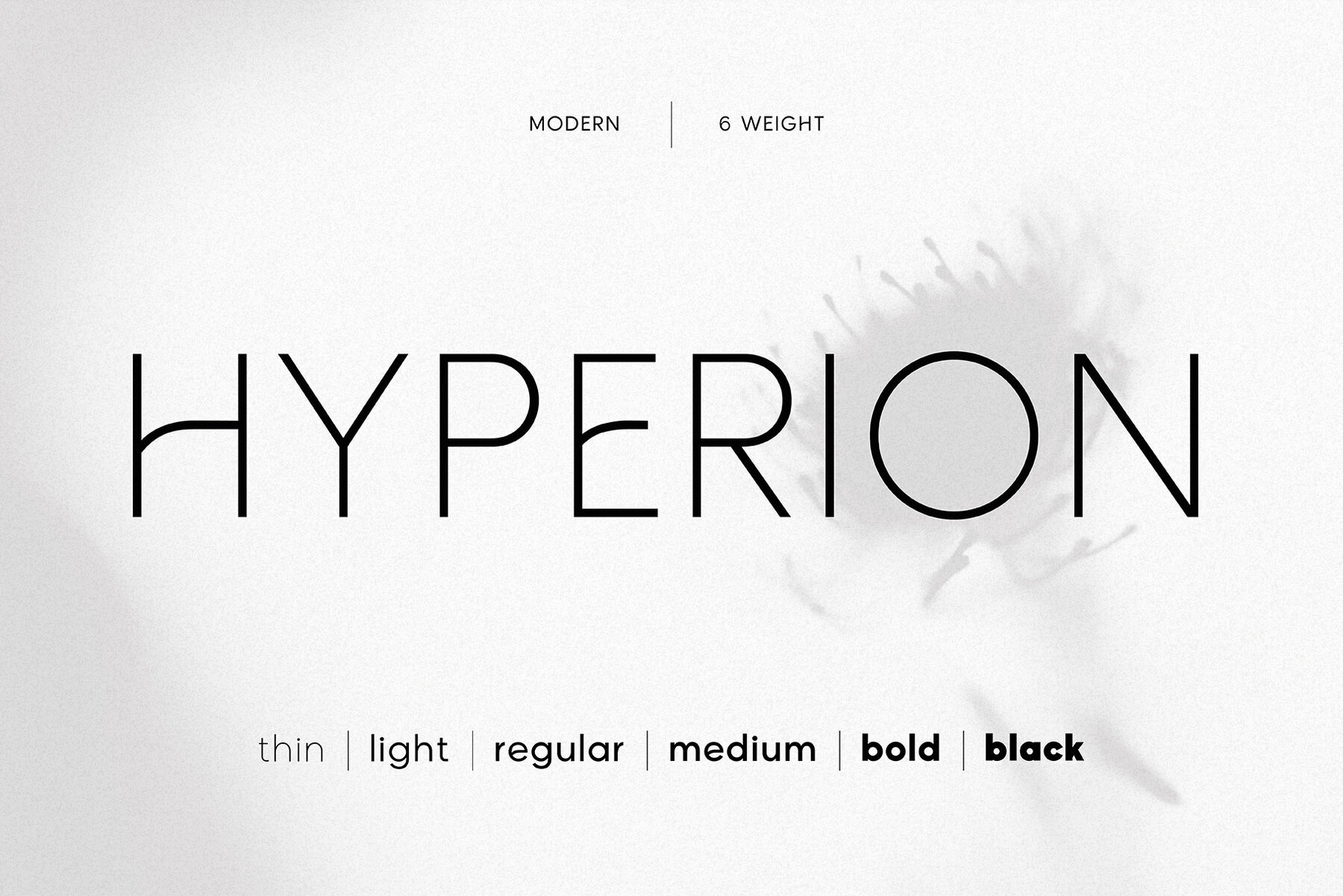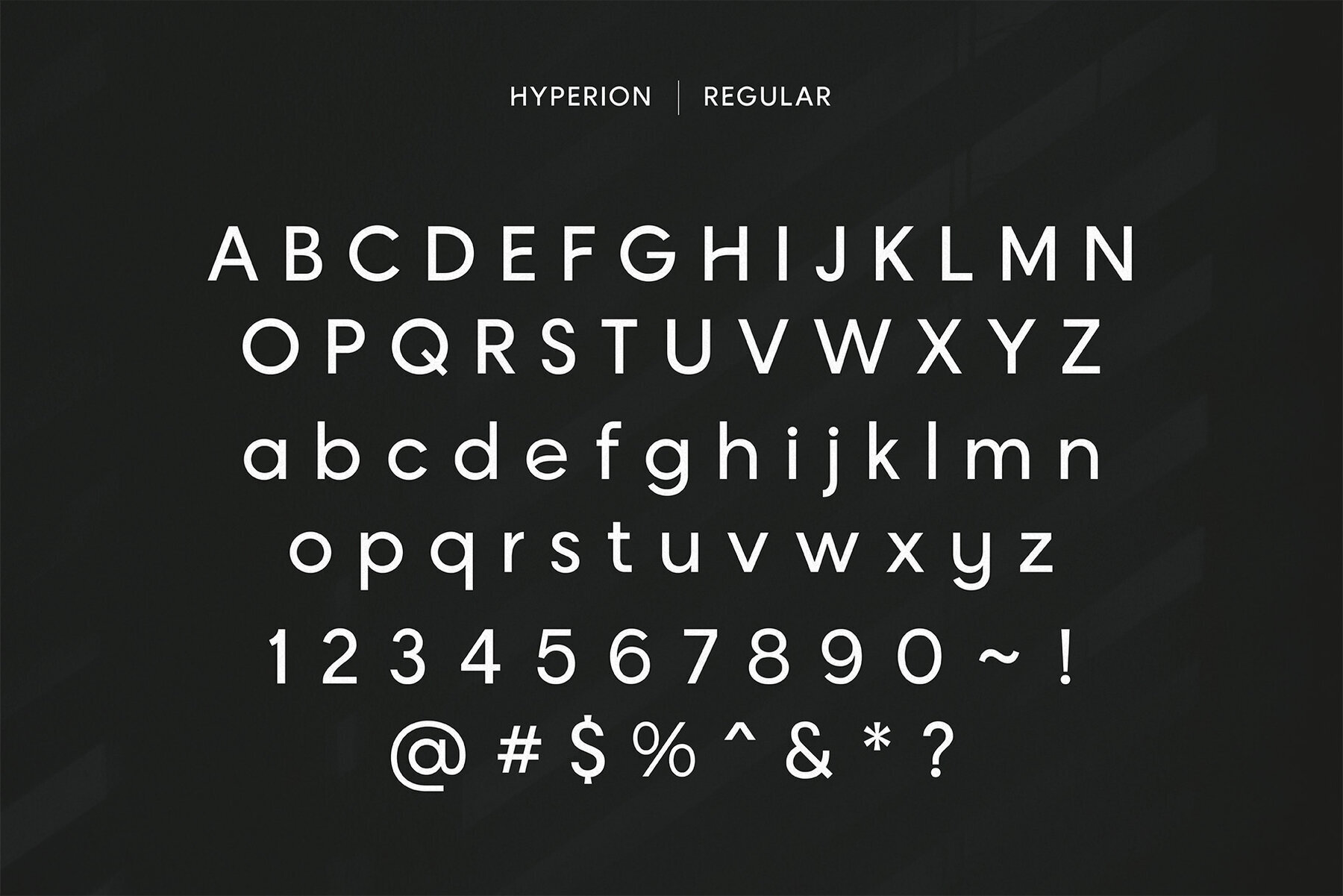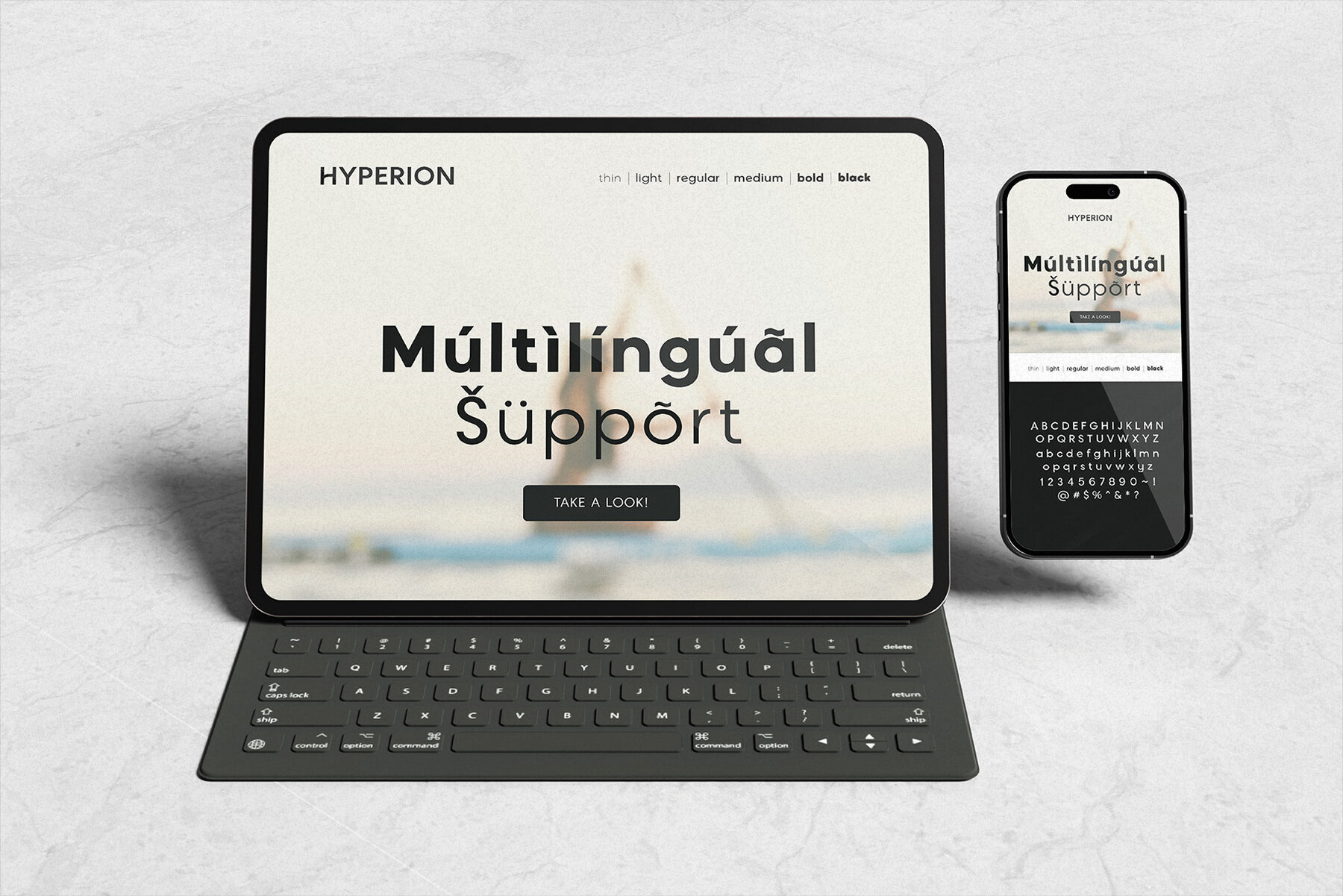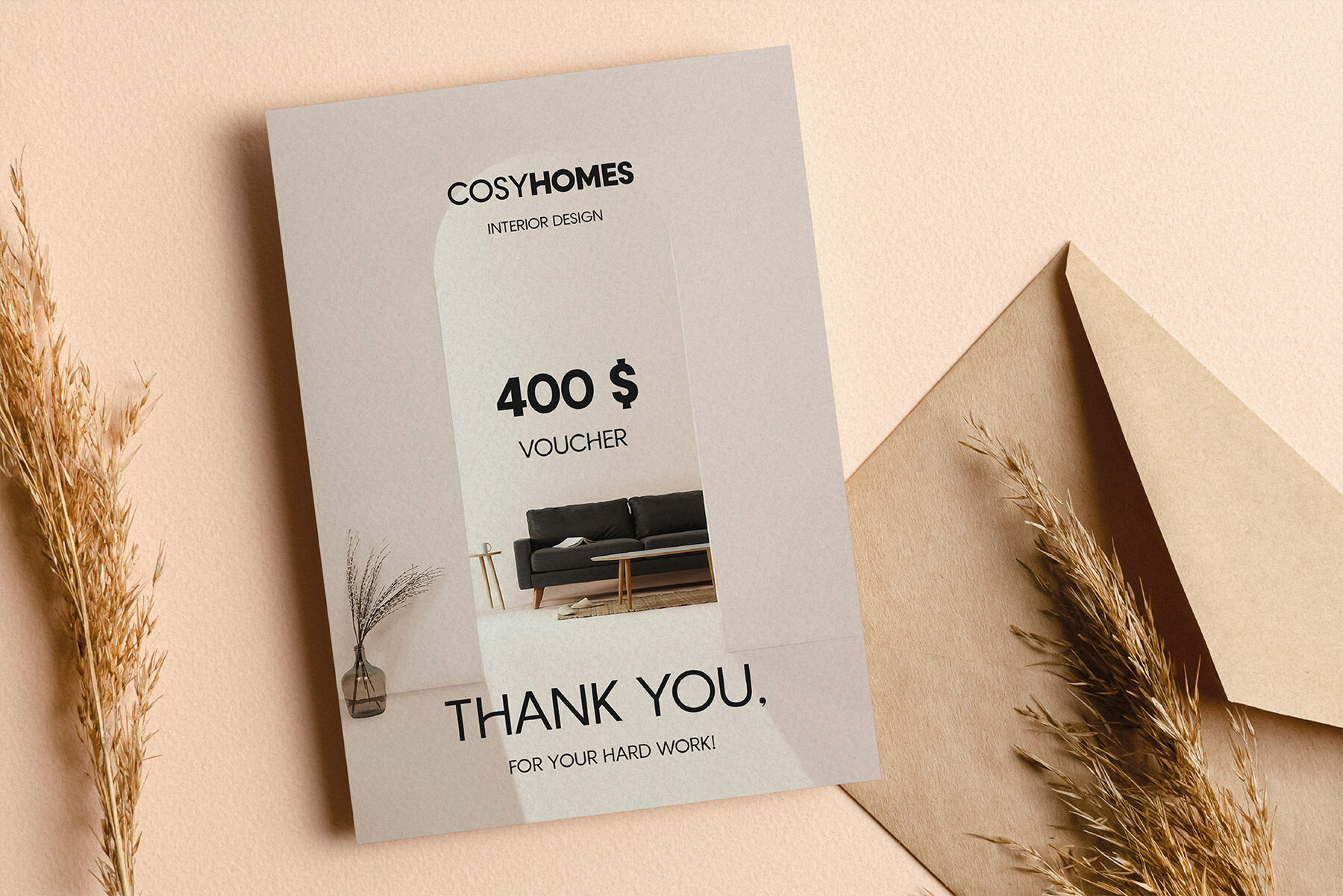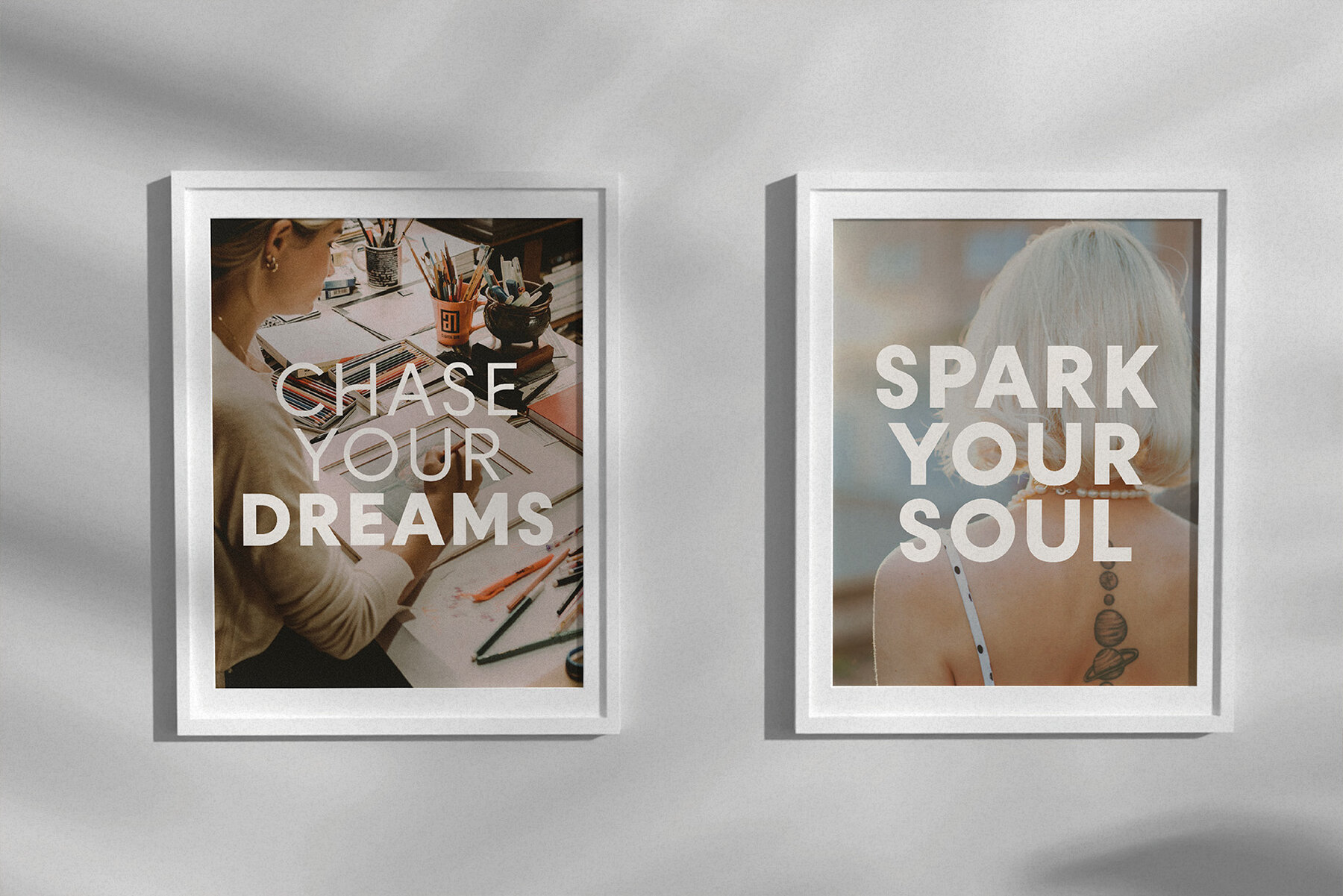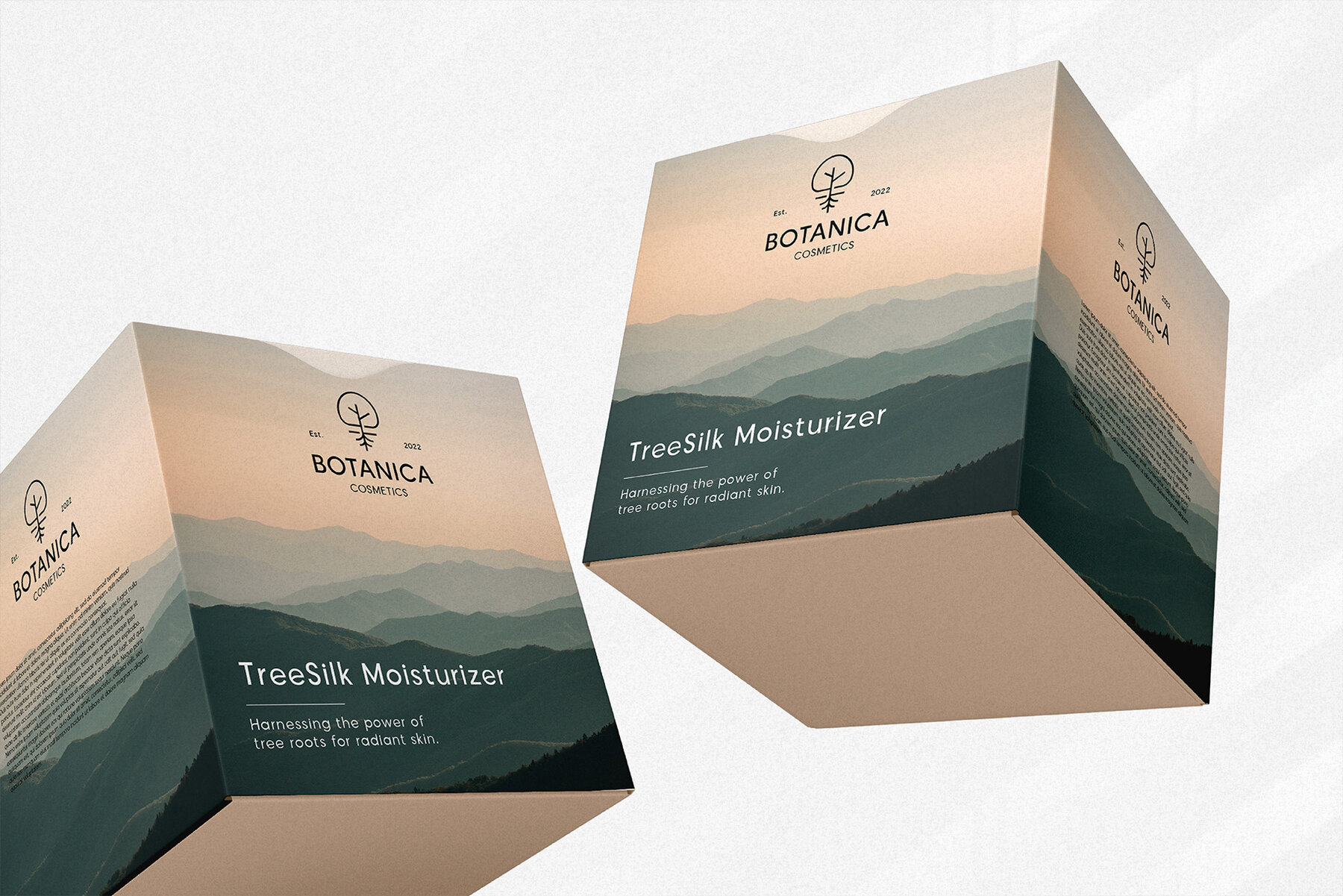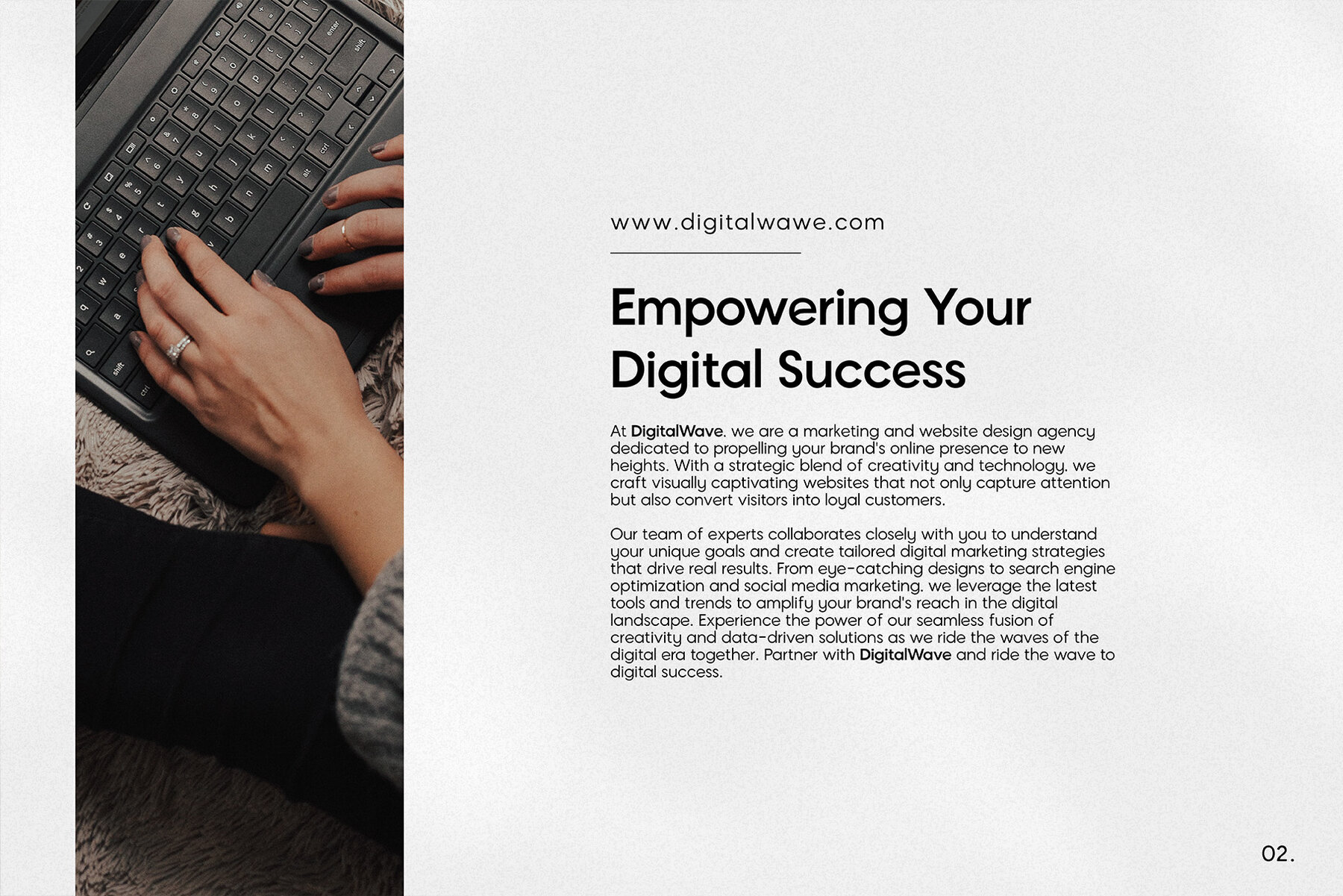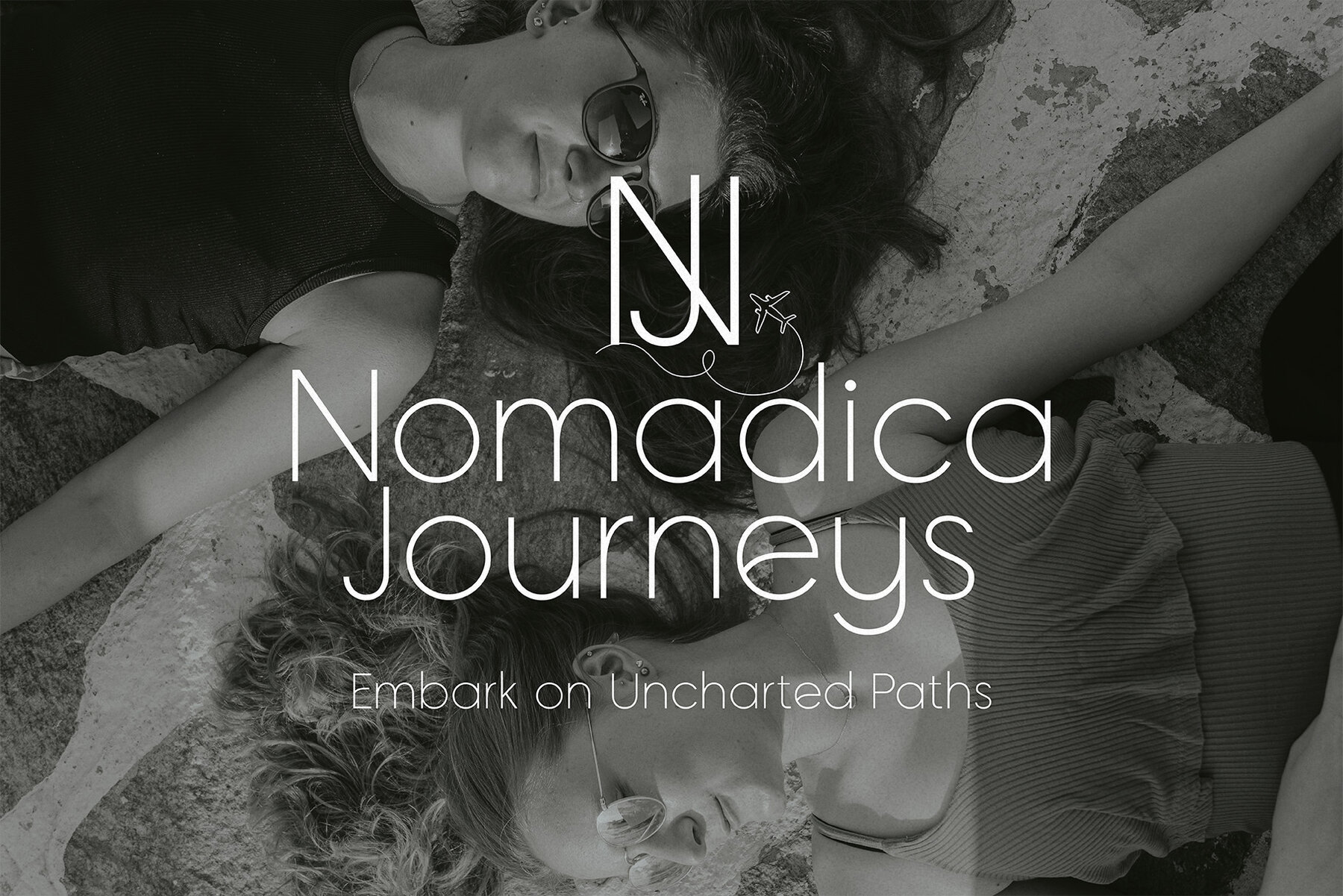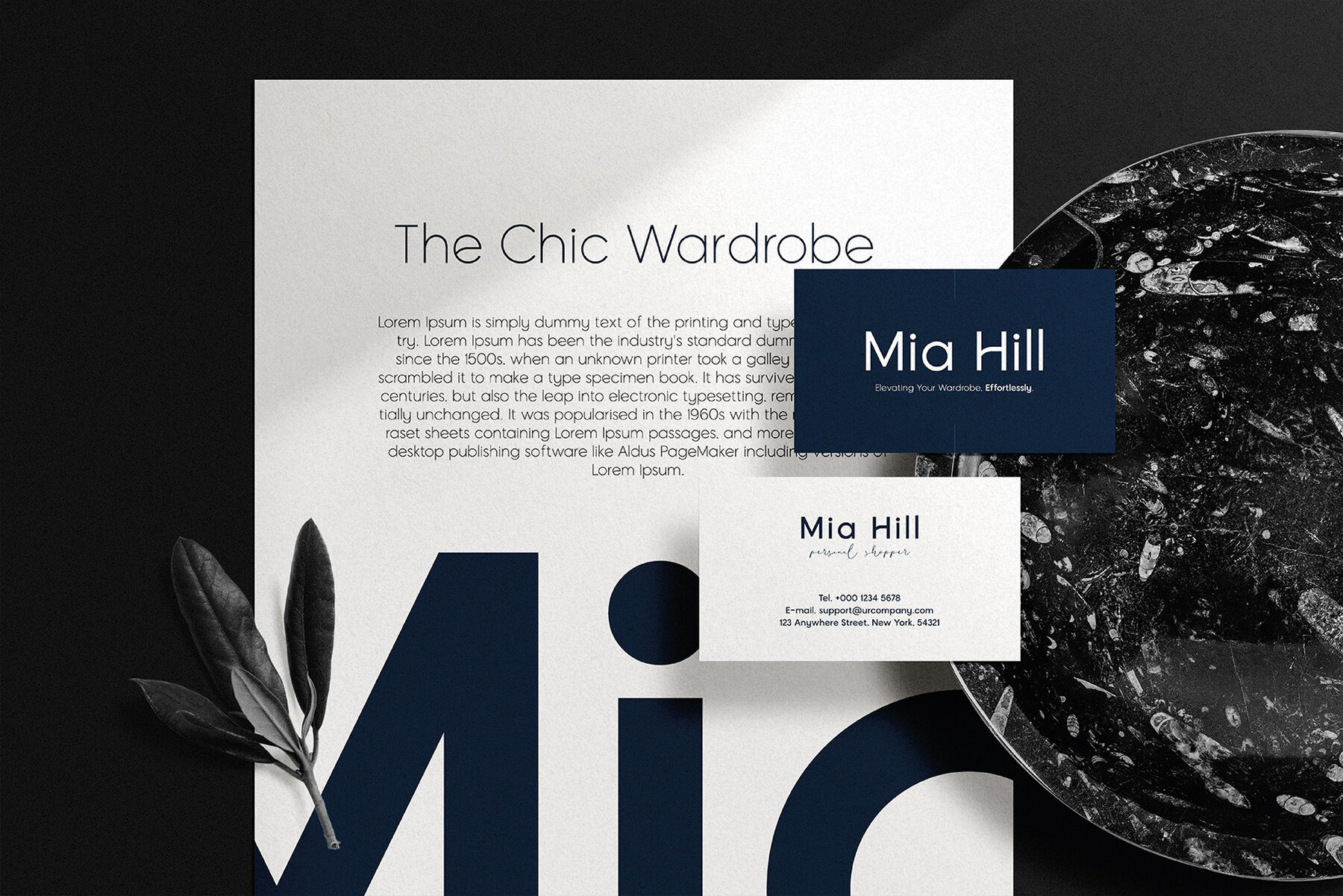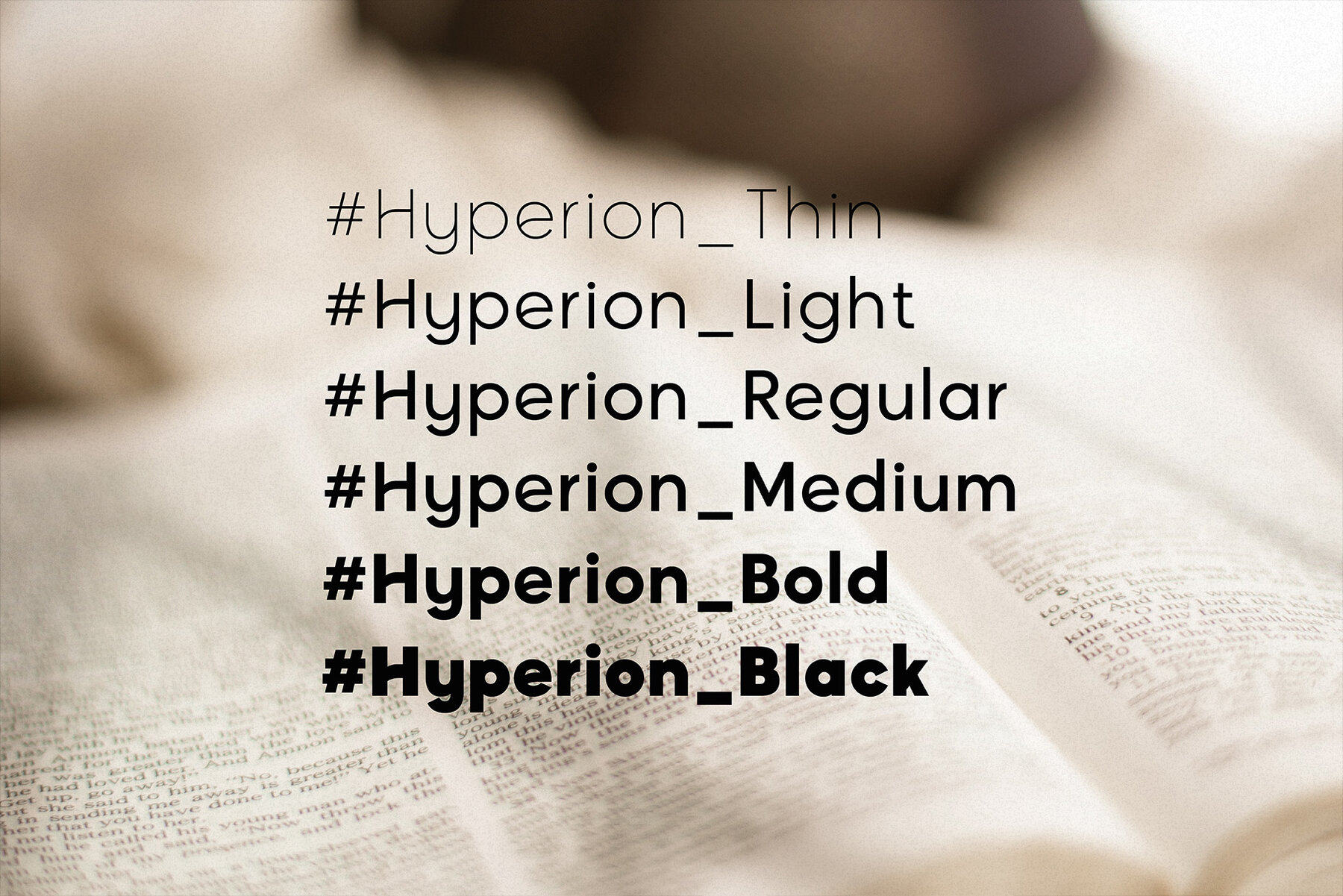
Hyperion Font
Introducing Hyperion, a cutting-edge and exhilarating font that redefines the very essence of clean, minimal, and modern typography. Like a celestial beacon, Hyperion’s sleek lines and uncluttered form effortlessly guide your eyes through a cosmic journey of letters, numbers, and symbols. This font is a masterpiece of precision, where each character is meticulously crafted to create an alluring harmony that ignites creativity and propels your designs into uncharted frontiers. Hyperion is the embodiment of simplicity’s allure, capturing the purity of space’s vast expanse and distilling it into a powerful tool that elevates any project to an extraordinary level of sophistication. Explore the limitless possibilities of design with Hyperion, a font that resonates with the pulse of progress and beckons you to set sail on a typographic odyssey like no other.